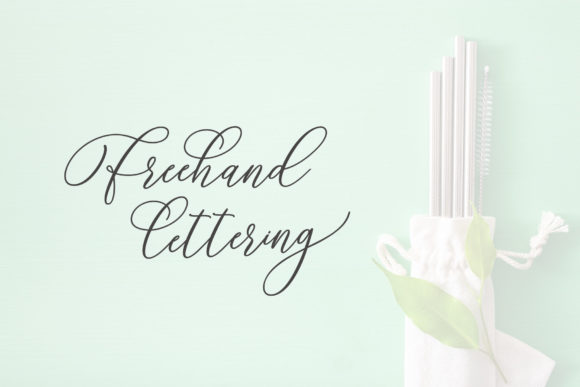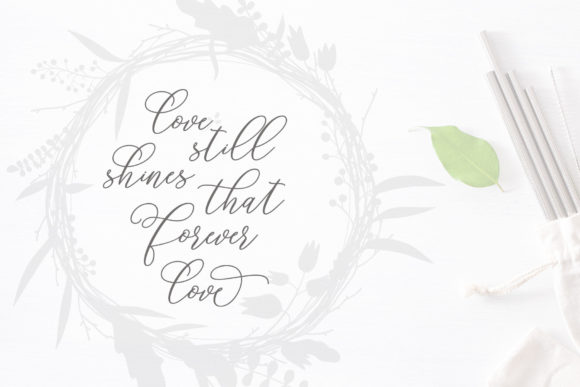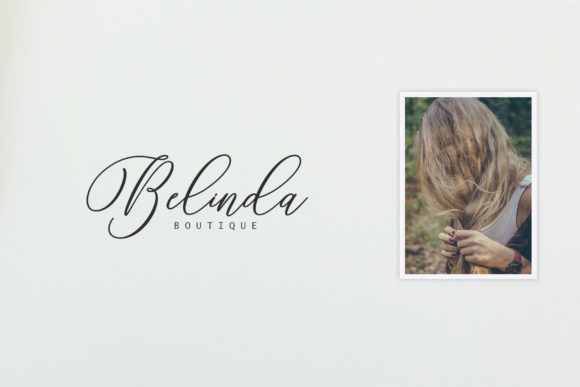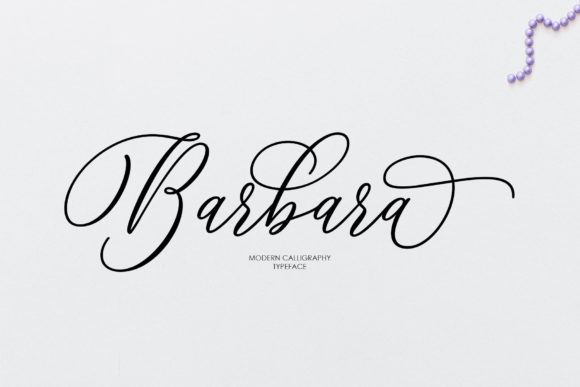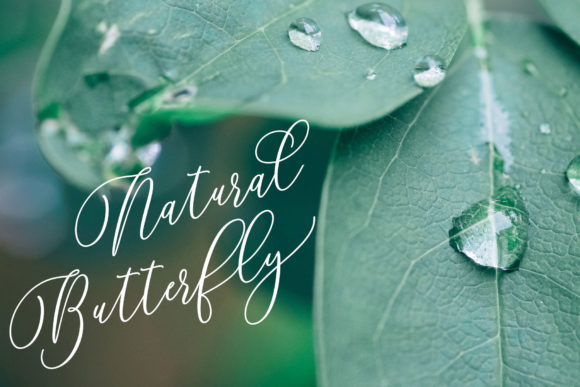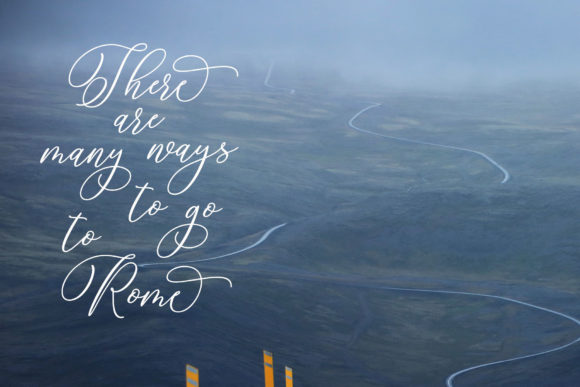
The Quest for the Perfect Script Font: Discovering Barbara
Ah, the elusive perfect script font. We’ve all been there – working on a project, pouring our heart and soul into it, and then… font frustration sets in. I recall a particularly daunting experience when a client requested a custom wedding invitation design. I had to find a font that exuded elegance, whimsy, and a personal touch. After hours of scrolling through font libraries, I stumbled upon Barbara – a splendid script font that has since become a staple in my design toolkit.
An Honest Review of Barbara Script Font
- ✨ Exquisite and natural flow: Barbara’s characters blend beautifully into each other, creating a sense of fluidity and harmony.
- ✅ Stylish and versatile: Perfect for a wide range of creative projects, from wedding invitations to branding and packaging.
- ⚠️ Limited use in very formal or corporate contexts: Barbara’s elegant, cursive nature might not be the best fit for more traditional or professional settings.
- ⚠️ Potential for overwhelming: With so many beautiful swashes and glyphs to choose from, it’s easy to get carried away and over-accessorize your design.
The Story Behind Barbara Script Font
Legend has it that Barbara was crafted by a talented type designer who wanted to create a font that captured the essence of elegant, handwritten scripts. Inspired by classic calligraphy and modern digital art, Barbara was born – a beautiful, flowing script font designed to add a personal touch to any creative project.